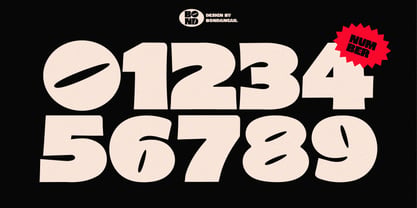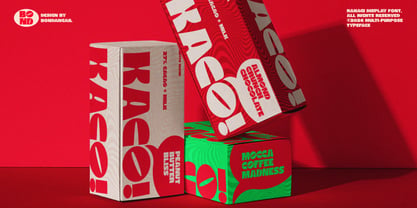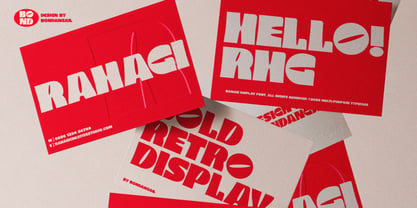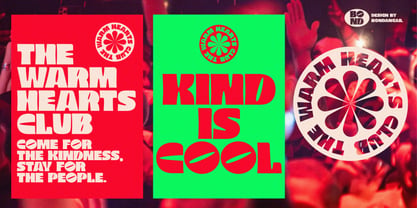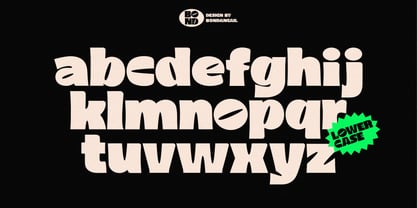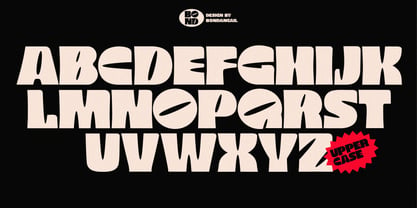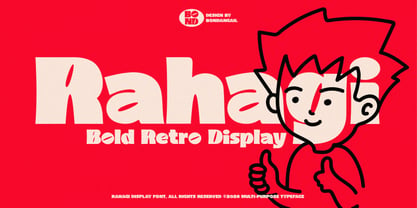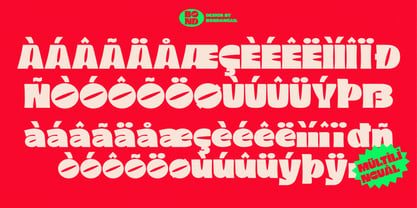
Rahagi
La familia tipográfica Rahagi fue diseñada por Bondan Gail Saputro y publicada por BondanGail. Rahagi contiene 1 estilos. Más información sobre esta familia
Rahagi is a bold retro display font designed to make a strong visual statement. Featuring chunky letterforms, smooth curves, and unique handcrafted details, this typeface combines vintage-inspired aesthetics with a modern playful touch. Its wide proportions and expressive shapes create a distinctive look that stands out perfectly in headlines, logos, posters, packaging, branding, music covers, streetwear, and editorial designs.
With its eye-catching personality and strong readability, Rahagi is ideal for designers looking for a funky, groovy, and impactful typography style. Whether used for retro branding, modern advertising, social media graphics, or bold visual identities, Rahagi delivers a memorable and energetic appearance that instantly grabs attention.
Rahagi includes:
• 1 style Typefaces Regular
• Uppercase, Lowercase, Numeral, Symbol and Punctuation
• Multilingual